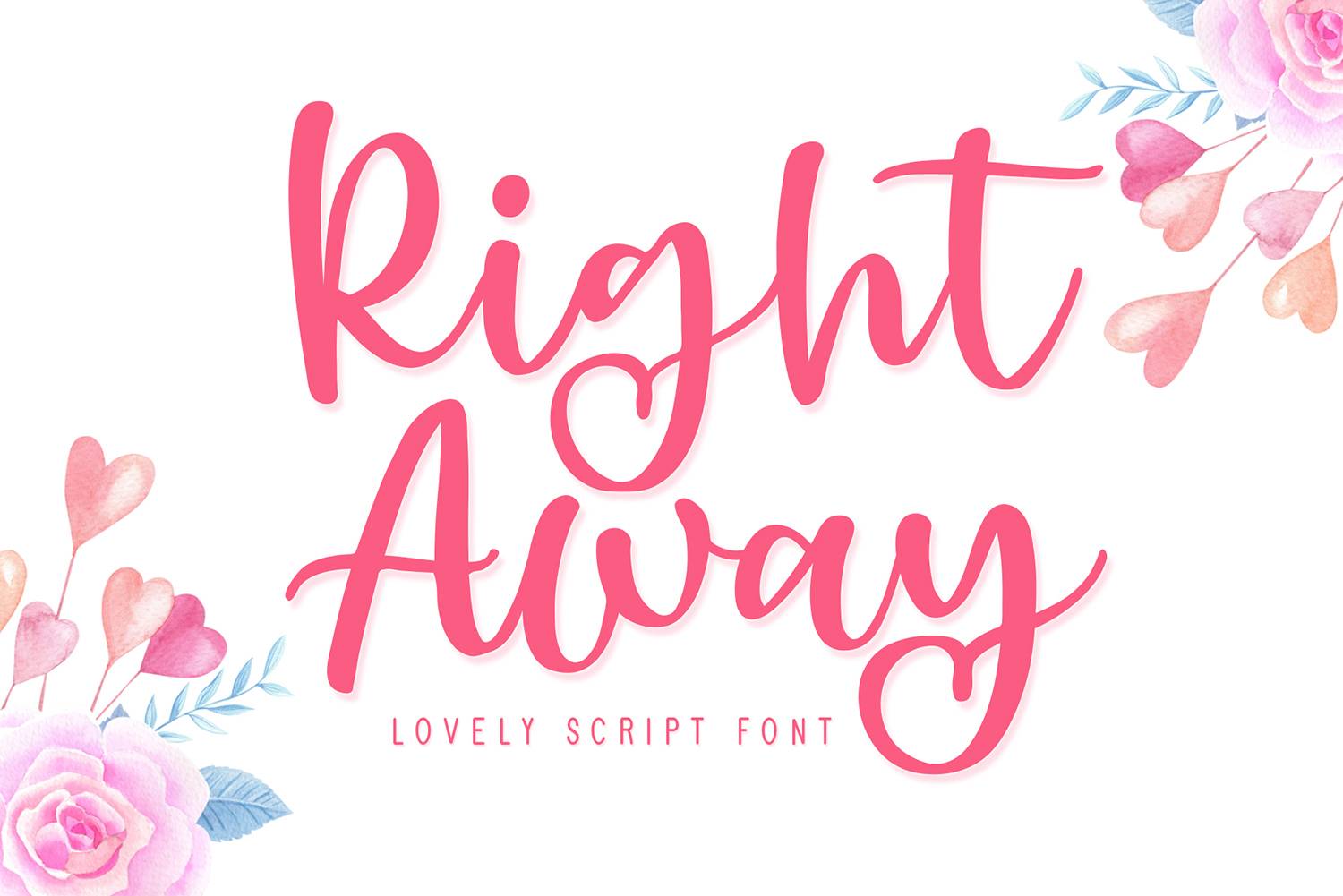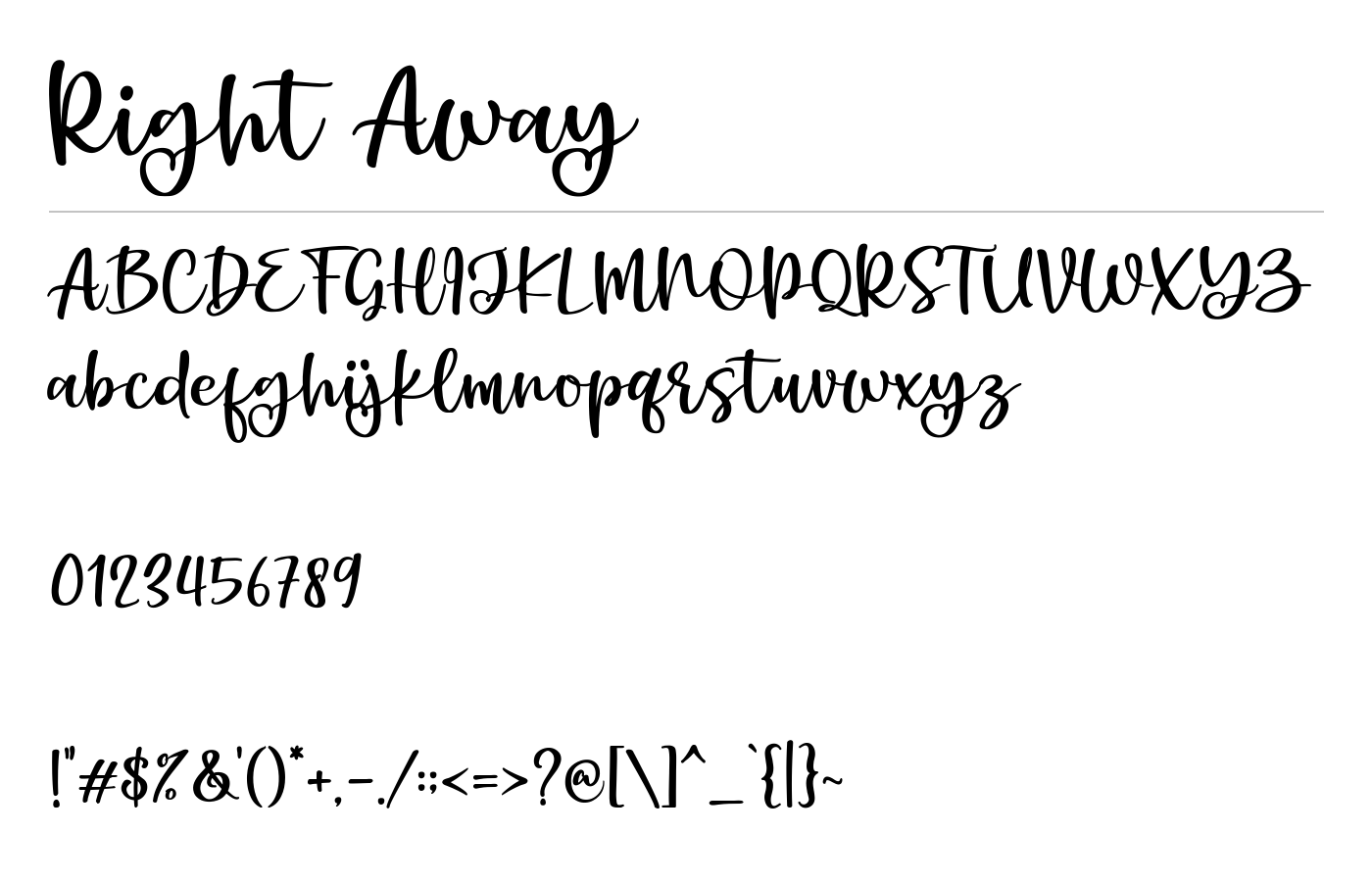
Right Away is a playful and lively script font with a hand-drawn feel, featuring smooth, flowing strokes and moderate contrast that give it a casual yet refined appearance. Its elegant swashes and consistent stroke width make it perfect for adding a personal, friendly touch to invitations, branding, and creative projects where warmth and personality are key. This font shines in headlines and display uses, bringing a charming, approachable style to your designs.
Right Away Font
About Right Away Font
| Font family | Right Away Font |
| Designer | Rizaldi |